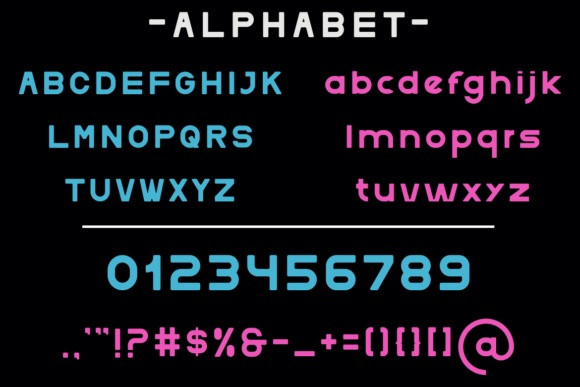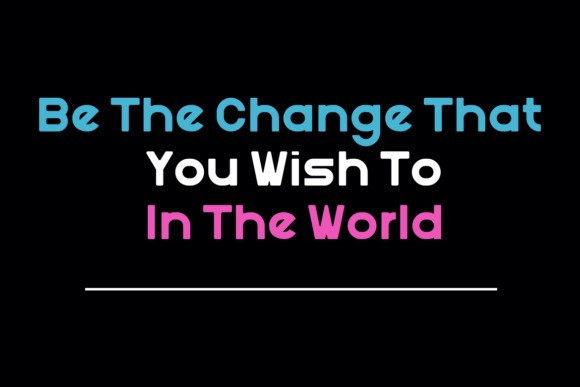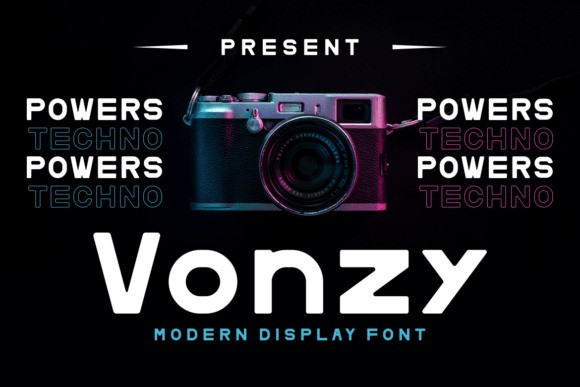
Vonzy Font
Vonzy Sans Serif Font is a cool and bold sans serif font. No matter the topic, this font will be an incredible asset to your fonts’ library, as it has the potential to elevate any creation.